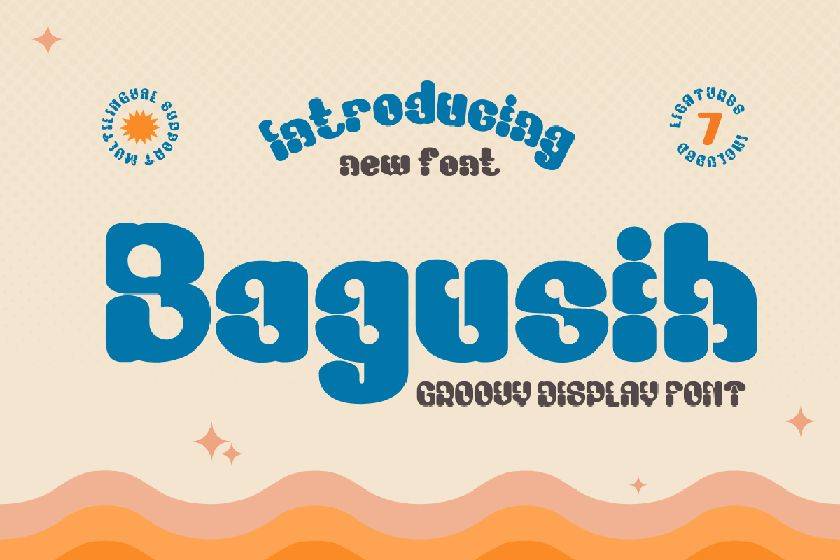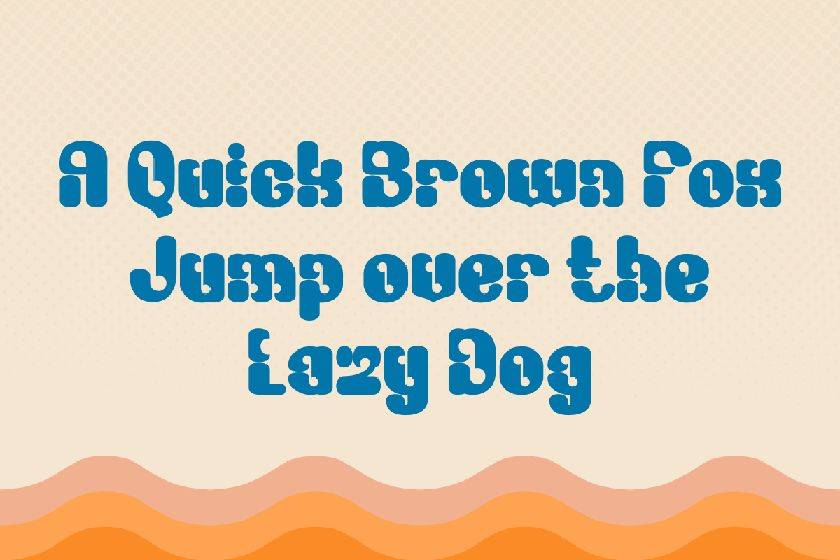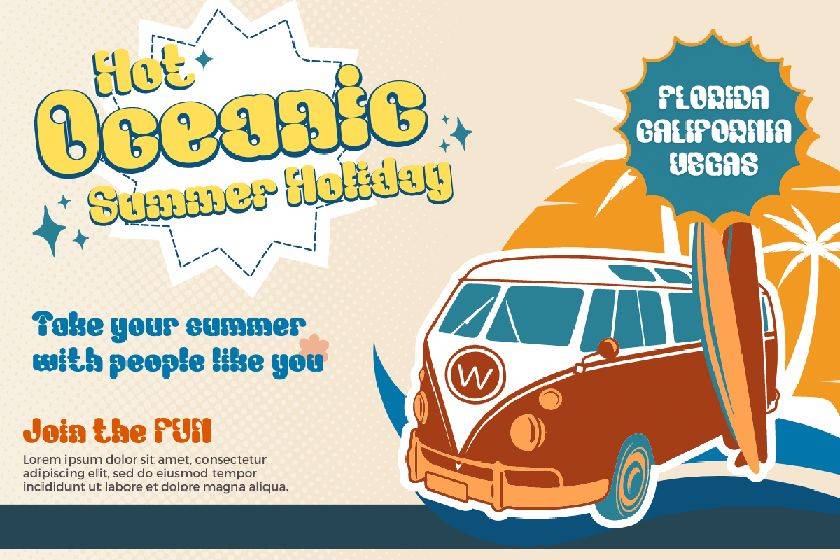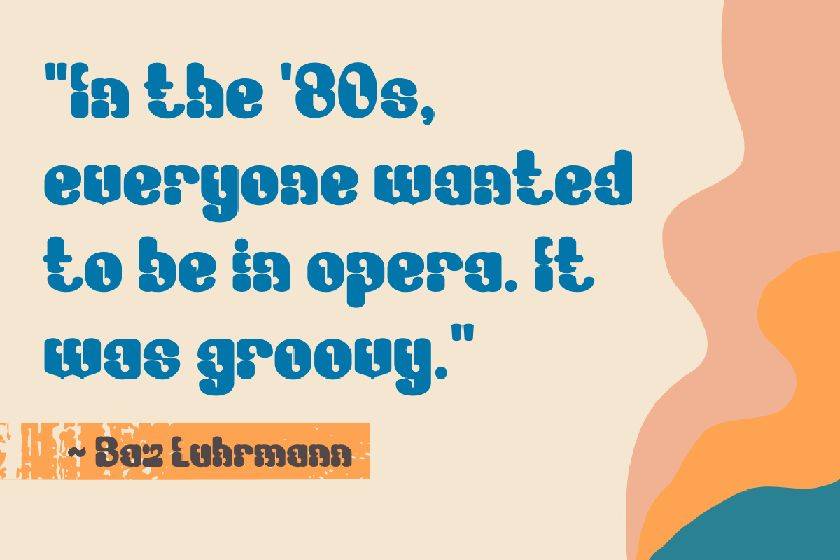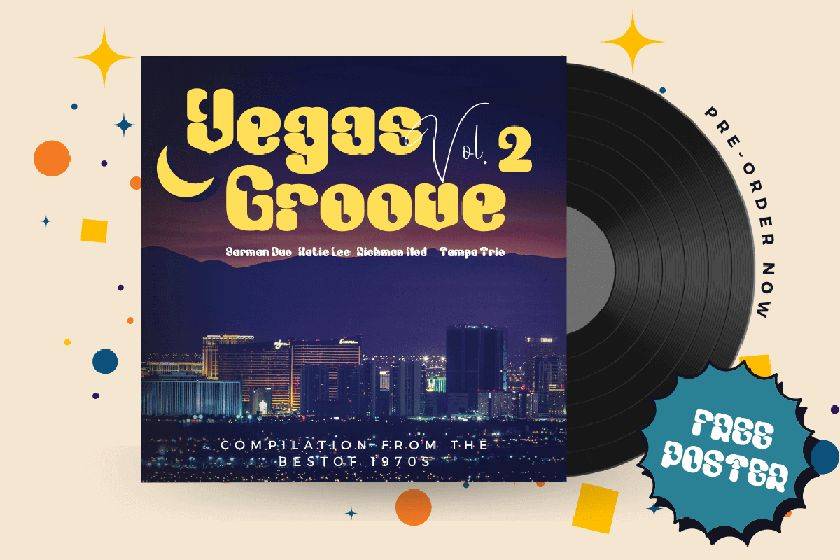
Bagusih is a bold, rounded slab serif font with a playful yet robust character, featuring thick strokes and smooth, curved edges that create a friendly and approachable feel. Its chunky letterforms, combined with a unique, almost modular construction, make it ideal for eye-catching headlines, logos, and packaging that want to convey creativity and fun without sacrificing impact. This font works best in bold display uses where its expressive style can shine and grab attention.
Bagusih Font
About Bagusih Font